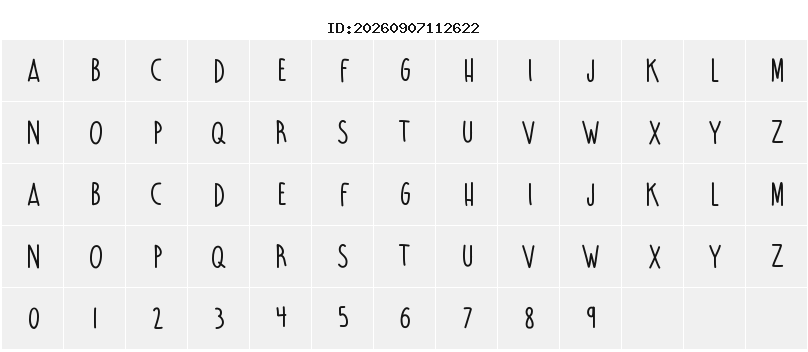
About UnicornFlakes.ttf
UnicornFlakes.ttf is a modern, elegant sans-serif font designed for ultimate readability and visual harmony. Perfect for branding, headlines, web design, and print materials.